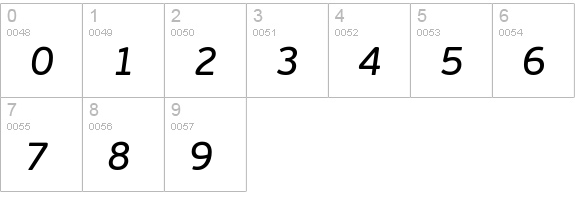
PFBeauSansPro-BbookItalic is a stylish and modern font that exudes elegance and sophistication. With its sleek and flowing italic design, this font is perfect for adding a touch of charm to any text. The soft curves and subtle slant of the letters give a sense of grace and fluidity, making it ideal for use in a variety of design projects. What sets PFBeauSansPro-BbookItalic apart is that it is available for free download at FontsMarket.com. This means that you can easily access this beautiful font and incorporate it into your creations without any cost. Whether you're working on a personal project or a professional design, PFBeauSansPro-BbookItalic is a versatile and attractive choice that will enhance the visual appeal of your work.